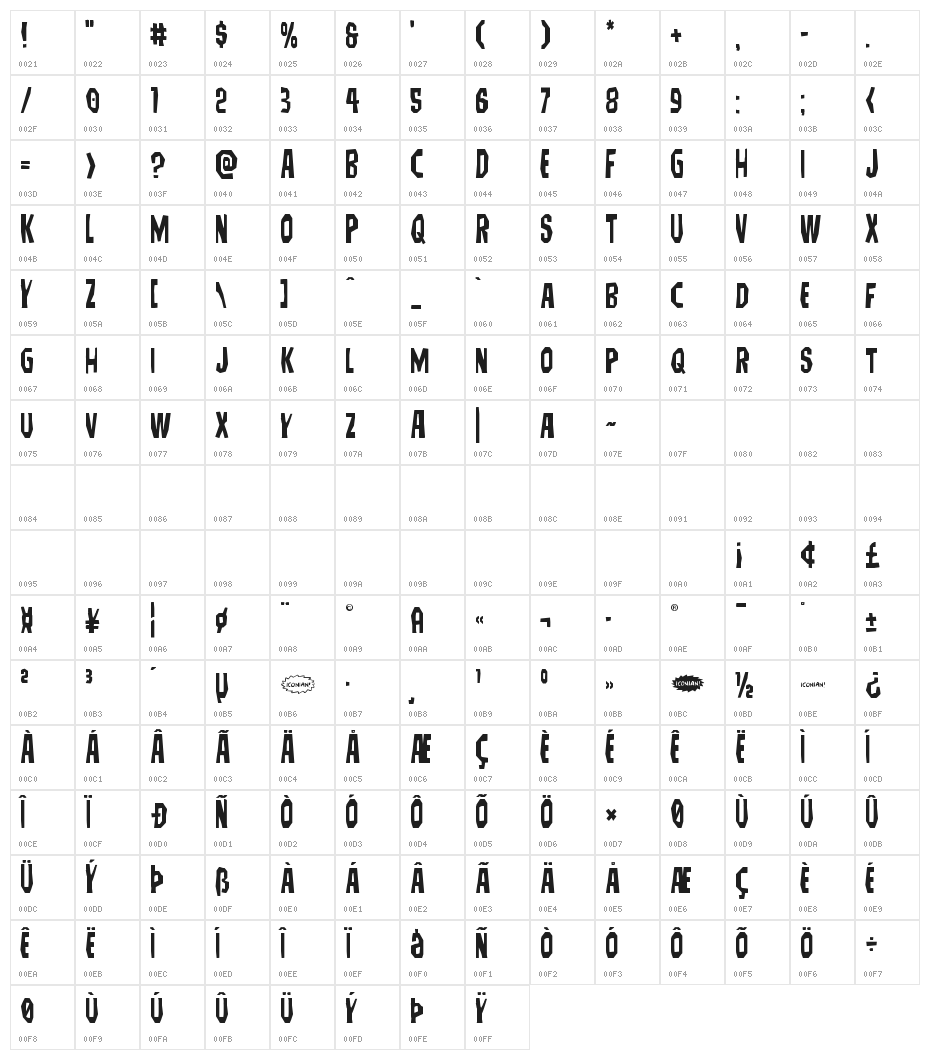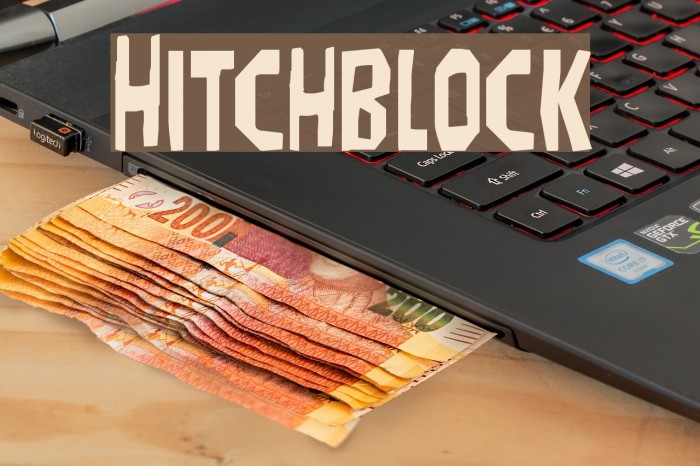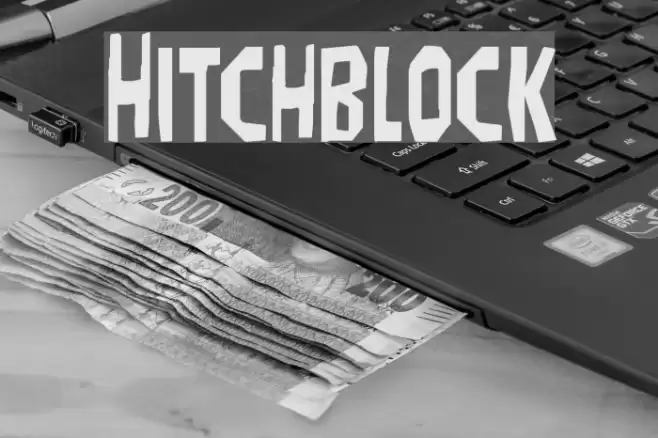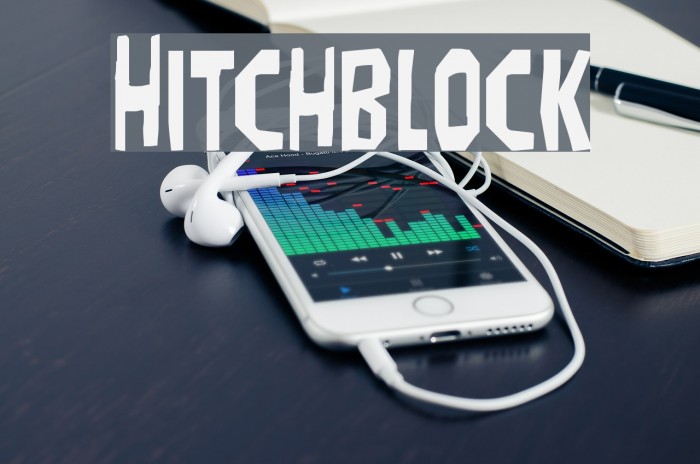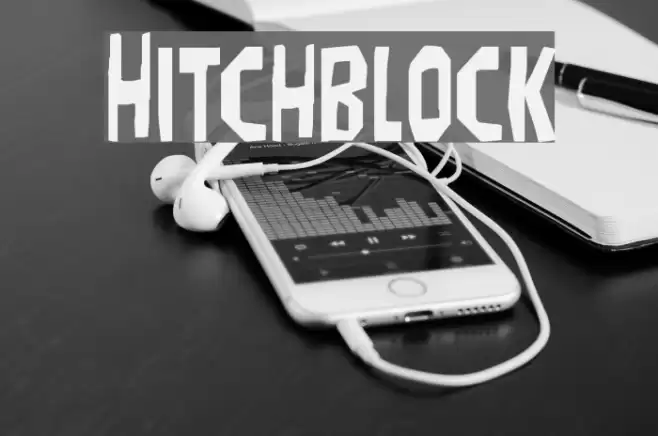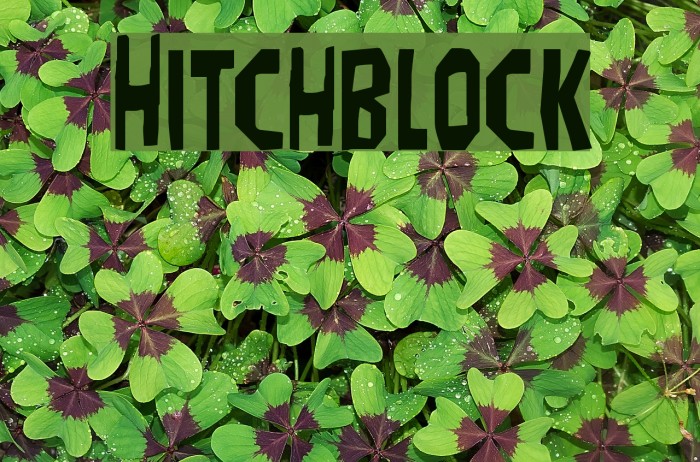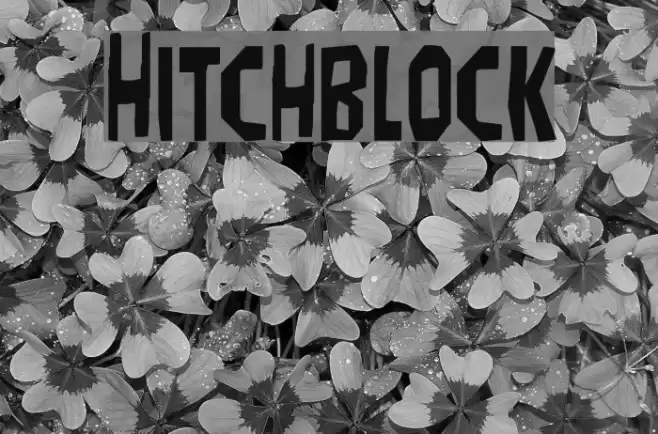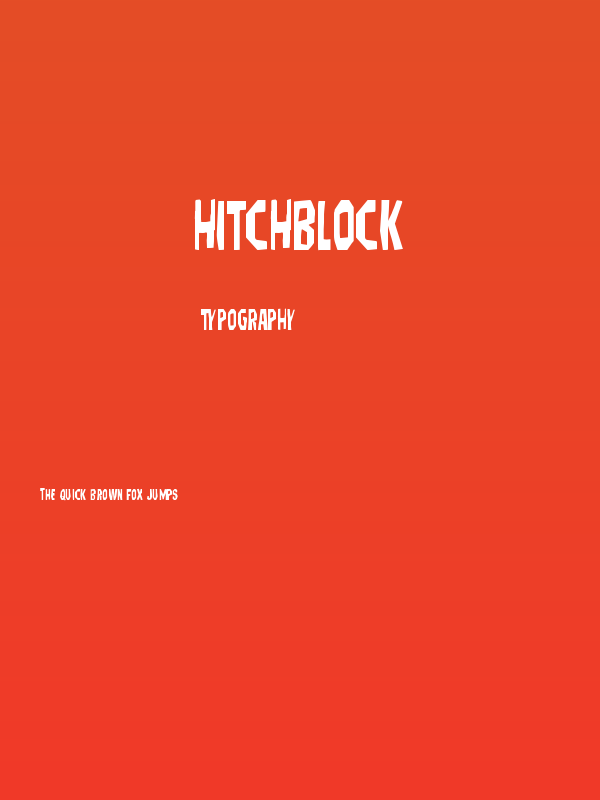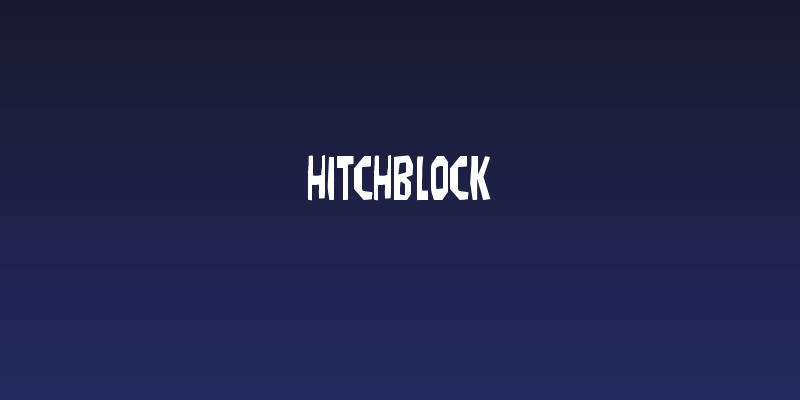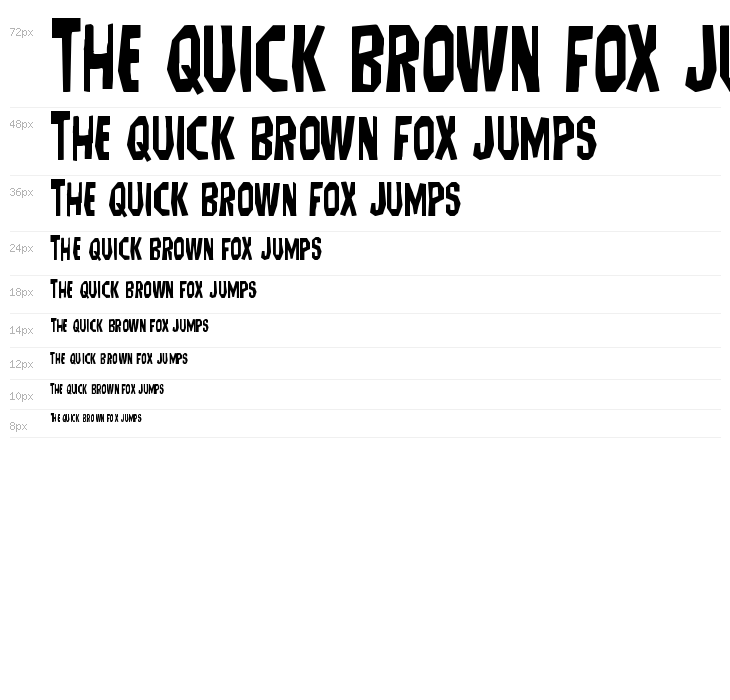
Hitchblock Font
Hitchblock Description
This font features a bold and striking design with angular, geometric shapes that give it a distinct, edgy appearance. The characters are uniformly bold, with a slightly condensed width that enhances its impactful presence. The uppercase letters are particularly prominent, with sharp edges and a modern aesthetic that makes them stand out. The numbers and special characters maintain this bold style, ensuring consistency across all glyphs. The font's unique style is both eye-catching and versatile, suitable for a variety of creative applications.